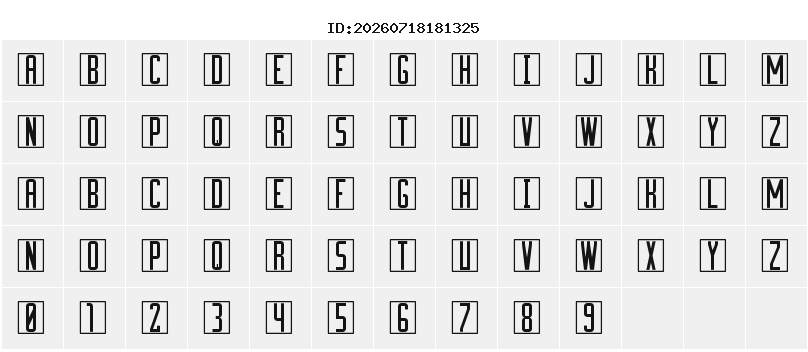
• Font Name: Cuadritos St
• Full Font Name: Cuadritos St
About Cuadritos St.ttf
Cuadritos St.ttf is a modern, elegant sans-serif font designed for ultimate readability and visual harmony. Perfect for branding, headlines, web design, and print materials.